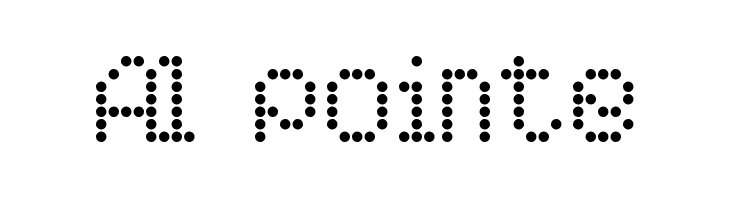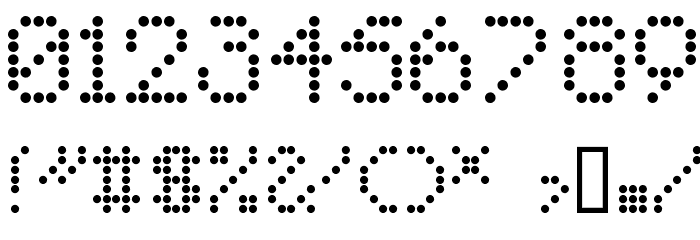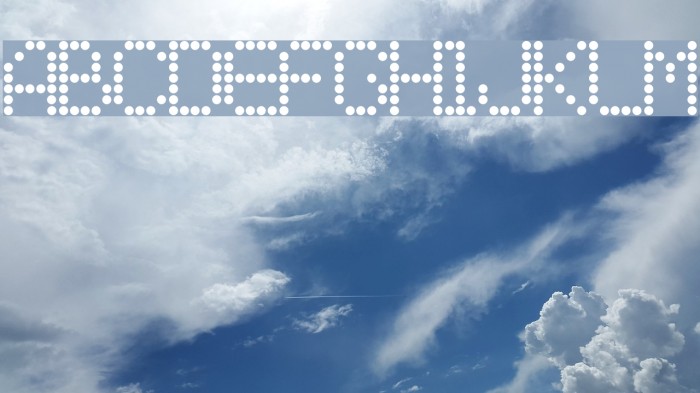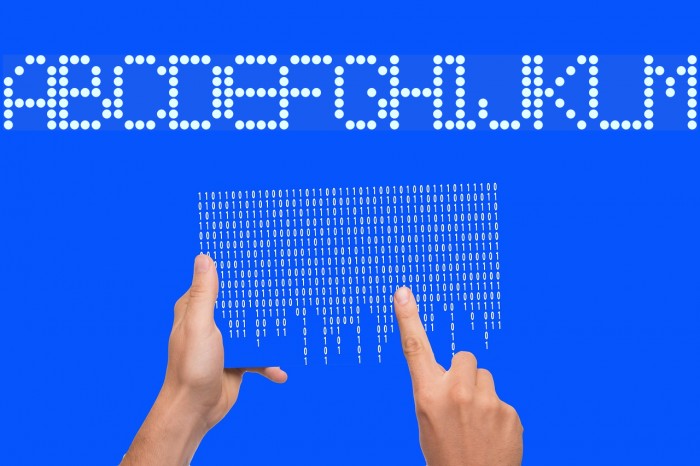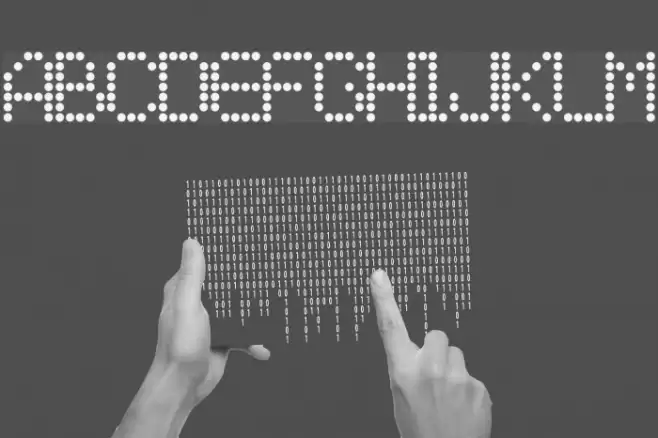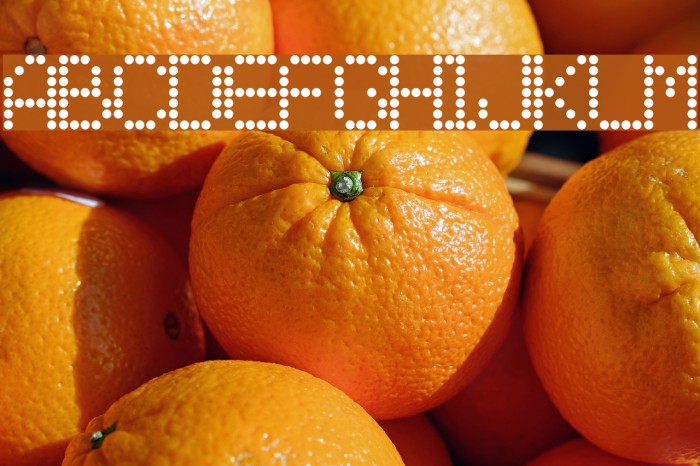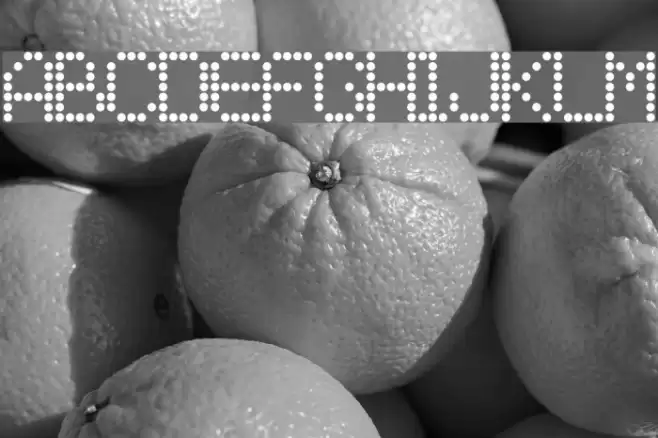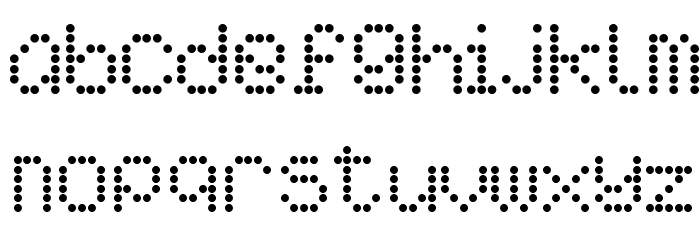
AI pointe Font
AI pointe Description
This font is a unique and creative design composed entirely of dots arranged to form each character. The dotted style gives it a playful and modern appearance, making it stand out from traditional fonts. Each letter and number is constructed with a consistent pattern of dots, providing a uniform look across the entire character set. The spacing between the dots is even, ensuring readability while maintaining its distinctive style. This font is particularly eye-catching and can be used to add a touch of whimsy and modernity to any project.
| Proposed Projects | Ideal for creative projects such as posters, digital art, children's books, and branding materials that require a modern and playful touch. |